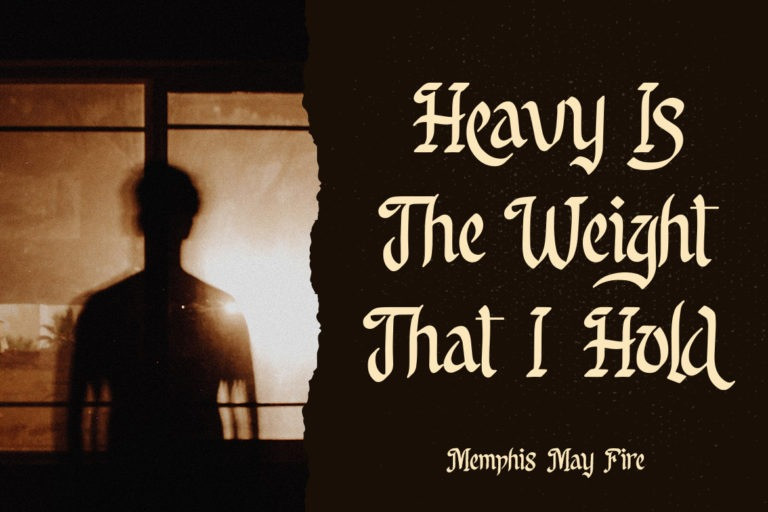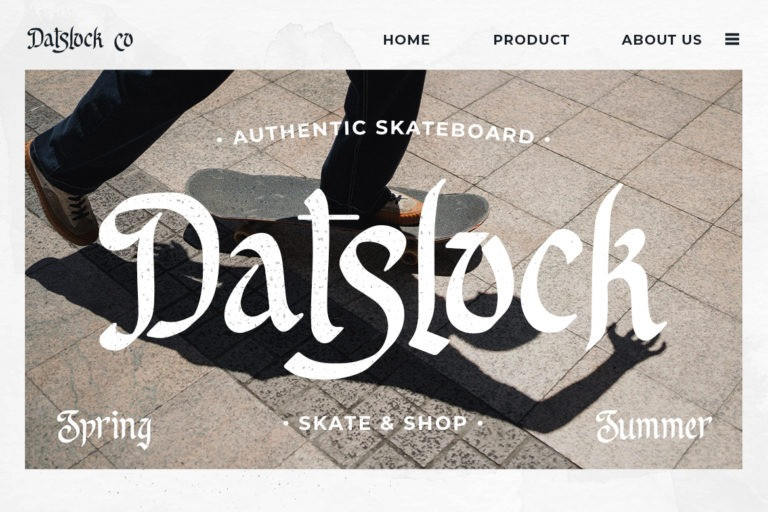
Amontesa Font
Amontesa Vintage Font is a vintage styled display font that is readable, bold and stylish. It is defined by smooth curves and is perfect for fashion branding or editorial designs. Add it confidently to your projects, and you will love the results.